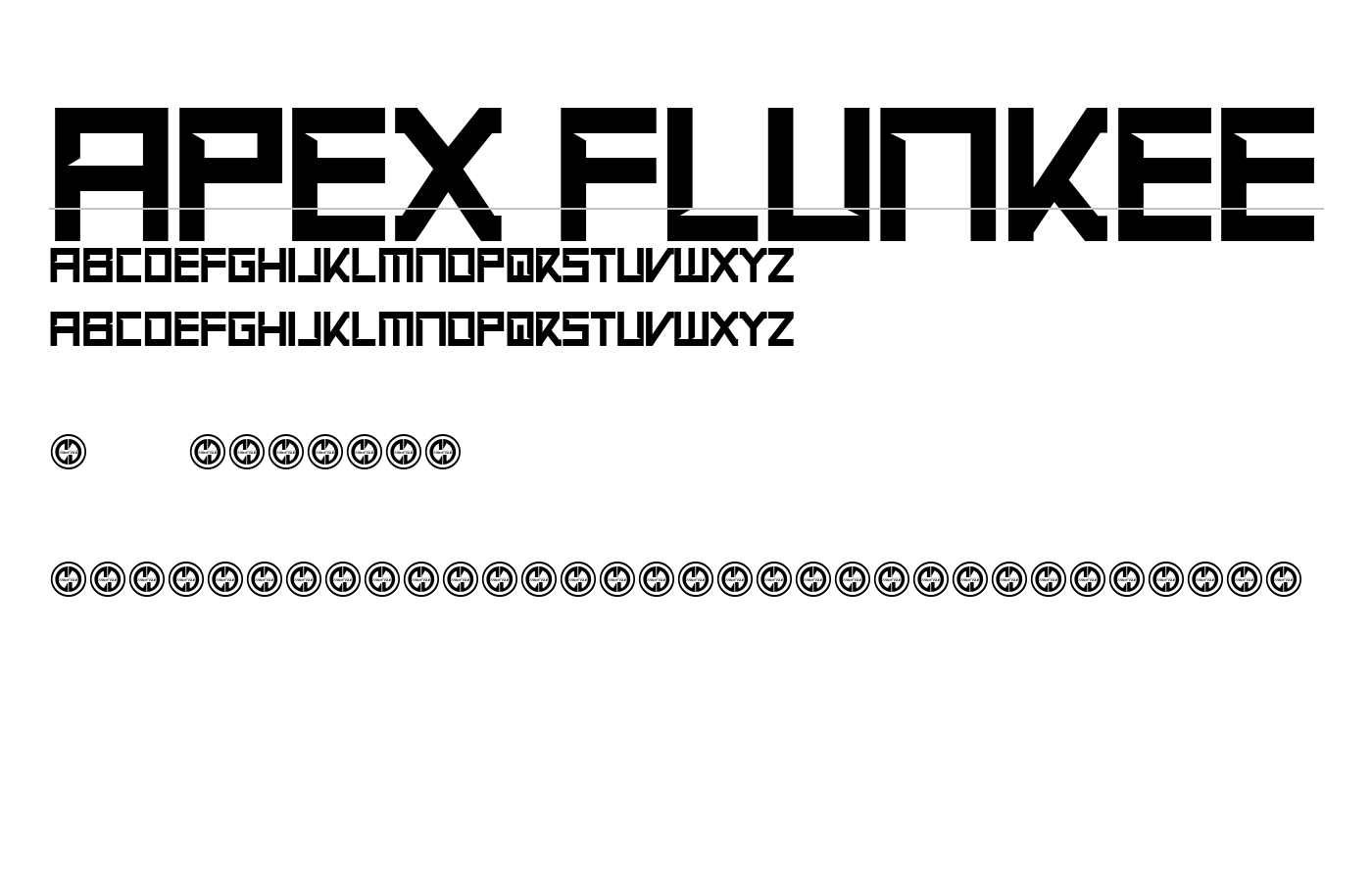
Apex Flunkee is a bold, geometric sans serif font with a strong futuristic and angular vibe. Its tall, condensed letterforms feature sharp corners and consistent stroke weight, creating a highly modern and technical appearance ideal for headlines, logos, or designs in technology and sci-fi themes. This font works best where a striking, contemporary statement is needed, combining readability with a distinctive, edgy personality.
Apex Flunkee Font
About Apex Flunkee Font